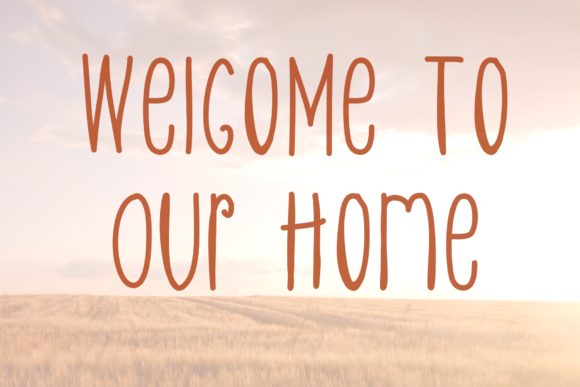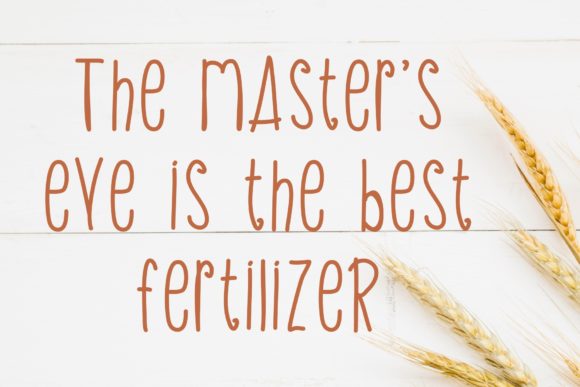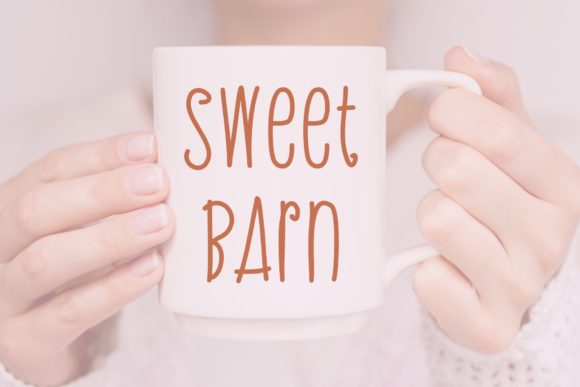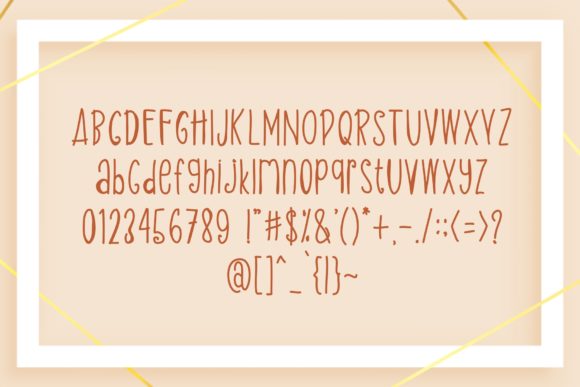
Introducing Farmhouse Story Font: The Perfect Addition to Your Design Arsenal
Are you a designer, crafter, or DIY enthusiast looking for a font that can add a touch of warmth and personality to your projects? Look no further than Farmhouse Story Font, a sweet and friendly handwritten font that’s perfect for a wide range of designs. With its natural and unique style, Farmhouse Story Font is incredibly versatile and can be used to create everything from rustic home decor to modern digital products.
Handwritten fonts have a way of adding a personal touch to any design. They evoke feelings of warmth, comfort, and approachability, making them perfect for projects that require a friendly and inviting tone. Farmhouse Story Font is no exception. Its handwritten style is reminiscent of a bygone era, when letters were written with love and care. The font’s natural and unique style makes it stand out from more traditional fonts, giving your designs a distinctive look that’s sure to grab attention.
What Makes Farmhouse Story Font So Special?
So, what sets Farmhouse Story Font apart from other handwritten fonts on the market? Here are just a few reasons why designers and crafters are falling in love with this beautiful font:
• Unique Style: Farmhouse Story Font has a one-of-a-kind style that’s both rustic and refined. Its natural, handwritten look makes it perfect for designs that require a touch of warmth and personality.
• Versatility: This font is incredibly versatile and can be used for a wide range of designs, from home decor and crafting to digital products and marketing materials.
• Imagination Unleashed: With Farmhouse Story Font, the possibilities are endless. Let your imagination run free and use this font to create unique and eye-catching designs that showcase your personal style.
Farmhouse Story Font is a perfect addition to any designer’s or crafter’s toolkit. Here are just a few ways you can use this beautiful font in your projects:
• Home Decor: Use Farmhouse Story Font to create rustic and charming home decor items, such as signs, banners, and wall art.
• Digital Products: Add a touch of personality to your digital products, such as printables, planners, and social media graphics.
• Crafting: Use Farmhouse Story Font to create unique and eye-catching crafting projects, such as cards, gift tags, and scrapbook pages.
• Marketing Materials: Add a touch of warmth and personality to your marketing materials, such as brochures, flyers, and business cards.
Getting Started with Farmhouse Story Font
Ready to get started with Farmhouse Story Font? Here are a few tips to help you get the most out of this beautiful font:
• Experiment with Different Sizes: Farmhouse Story Font looks great in a variety of sizes, from small and delicate to large and bold. Experiment with different sizes to find the one that works best for your project.
• Pair with Other Fonts: Farmhouse Story Font pairs well with a variety of other fonts, including serif and sans-serif fonts. Experiment with different font combinations to find the one that works best for your project.
Farmhouse Story Font is a sweet and friendly handwritten font that’s perfect for designers, crafters, and DIY enthusiasts. Its natural and unique style makes it incredibly versatile and can be used to create a wide range of designs. Whether you’re looking to add a touch of warmth and personality to your home decor, digital products, or marketing materials, Farmhouse Story Font is the perfect addition to your design arsenal. So why wait? Let your imagination run free and get started with Farmhouse Story Font today!